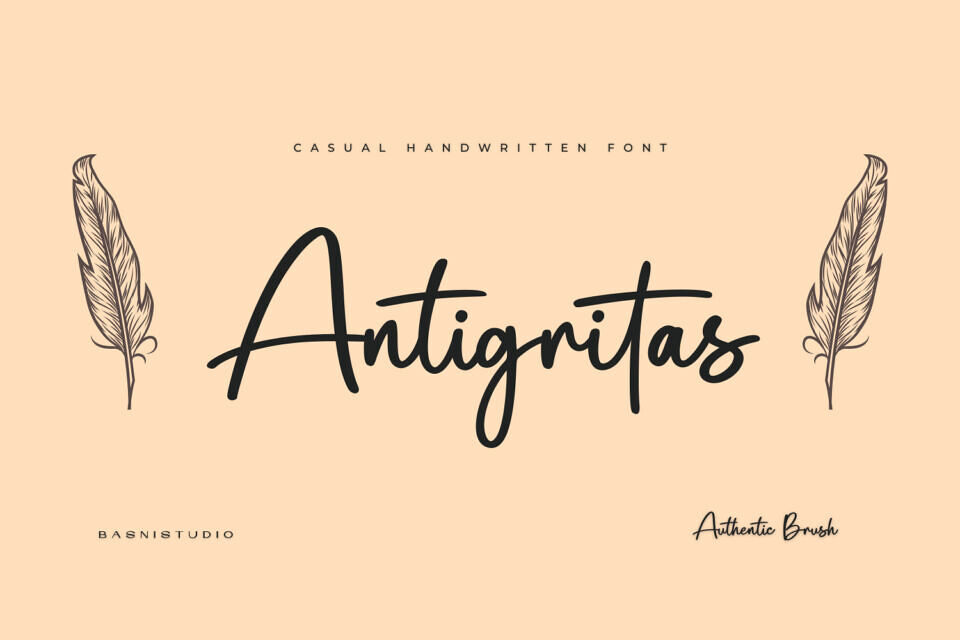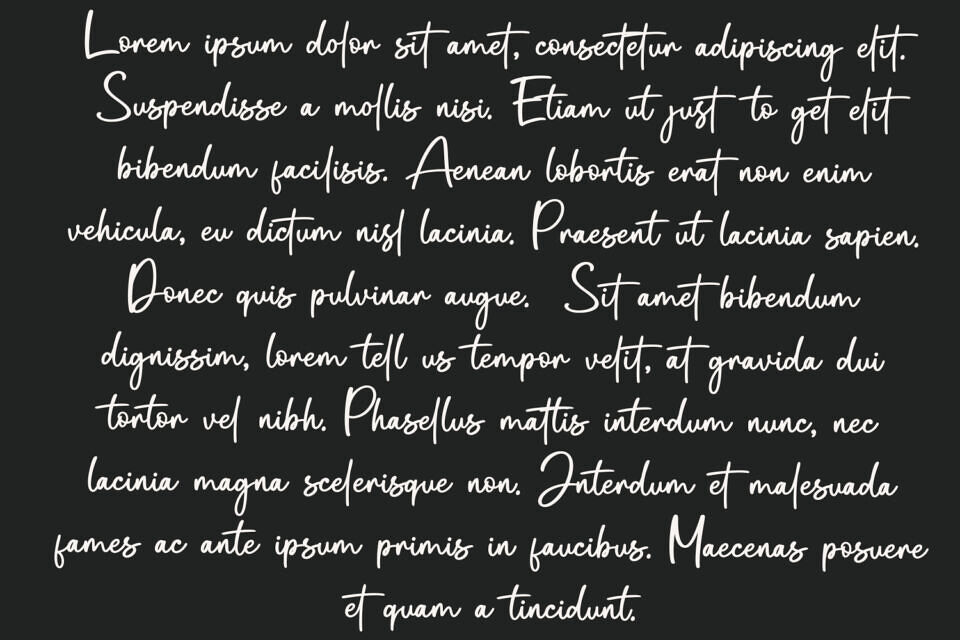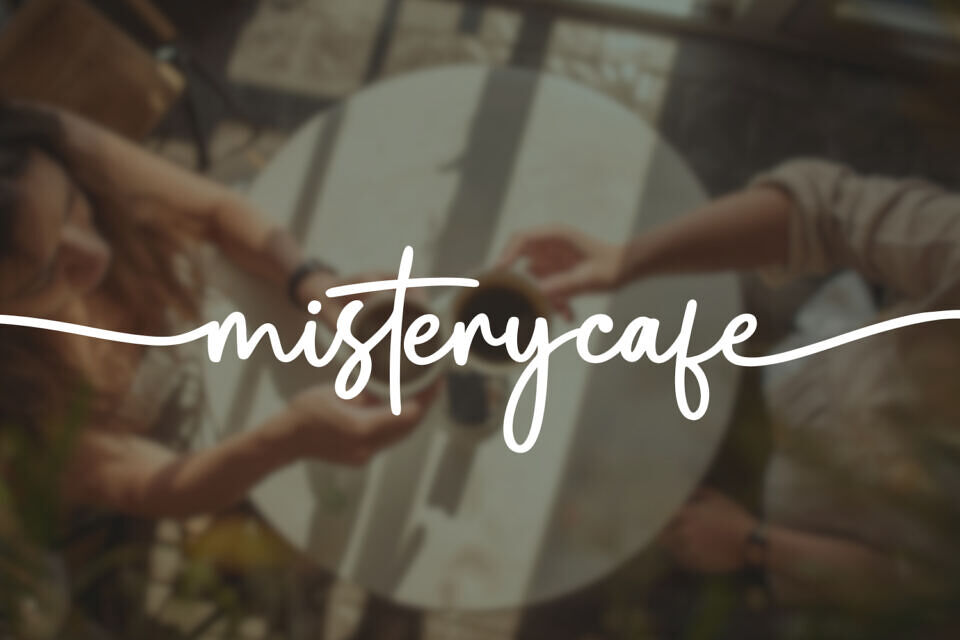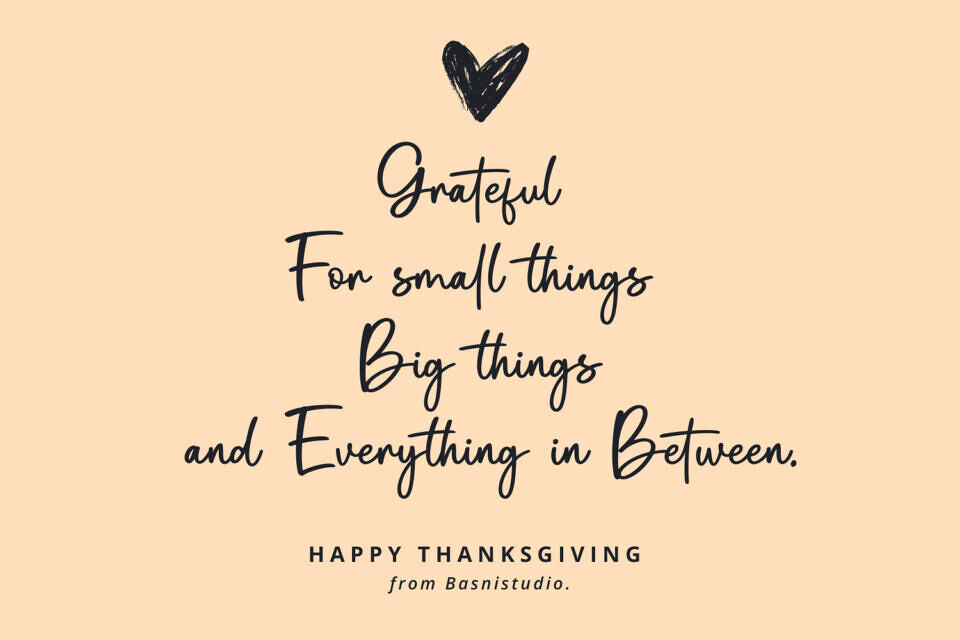
Antigritas is a Chic Handwritten Font Created with real pen strokes for a natural look and casual touch to everything from branding and social media to invitations and packaging.
Whether you’re building a powerful brand identity or crafting a standout design, Antigritas a Handwritting Font Created with real pen strokes for a natural look gives you the creative edge you need.